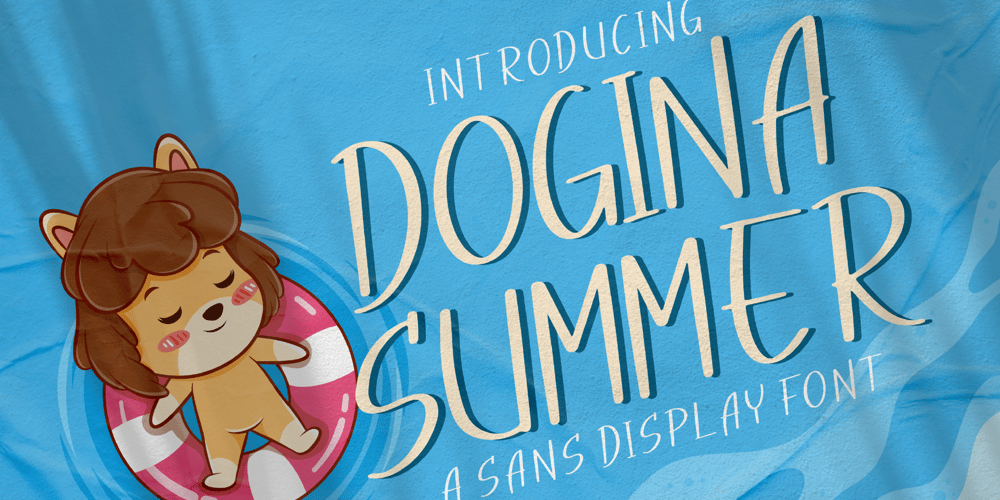
Dogina Summer
Dogina Summer font
Dogina Summer Font Family was designed by Dimas Alif Maulana and published by Integritype. Dogina Summer contains 2 styles and family package options. Dogina Summer is a simple, friendly and adaptable display font. Whether you use it for cartoon related designs, children games or just any creation that requires a lovely touch, this font will be an amazing choice.